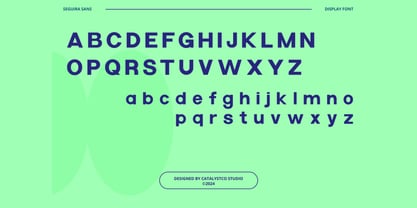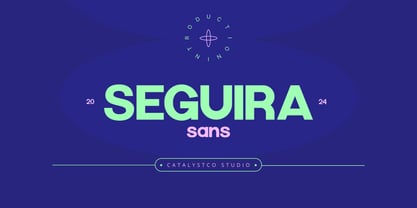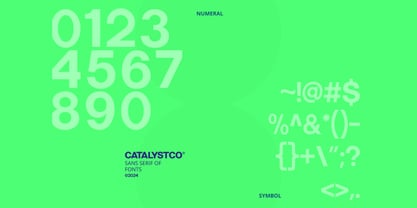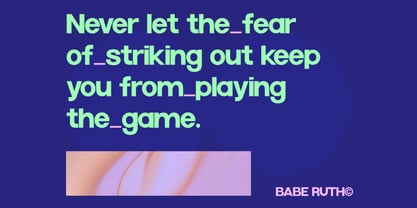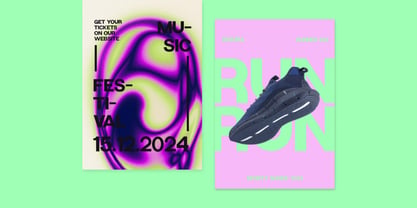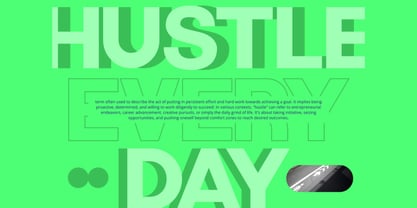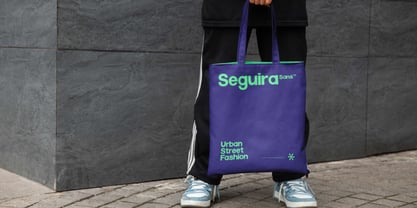
Seguira Sans
by Catalystco Std
The Seguira Sans Font Family was designed by and published by Catalystco Std. Seguira Sans contains 1 styles. More about this family
Seguira Sans presents a clean, confident sans serif with bold proportions, smooth curves, and balanced geometry that create a strong yet friendly visual voice. The typeface includes uppercase, lowercase, numerals, punctuation, and multilingual support. Relevance and Use Cases is perfect for branding systems, logos, posters, websites, social media graphics, packaging, editorials, presentations, marketing materials, headlines, and modern digital interfaces that require bold clarity and contemporary character.
Foundry: Catalystco Std